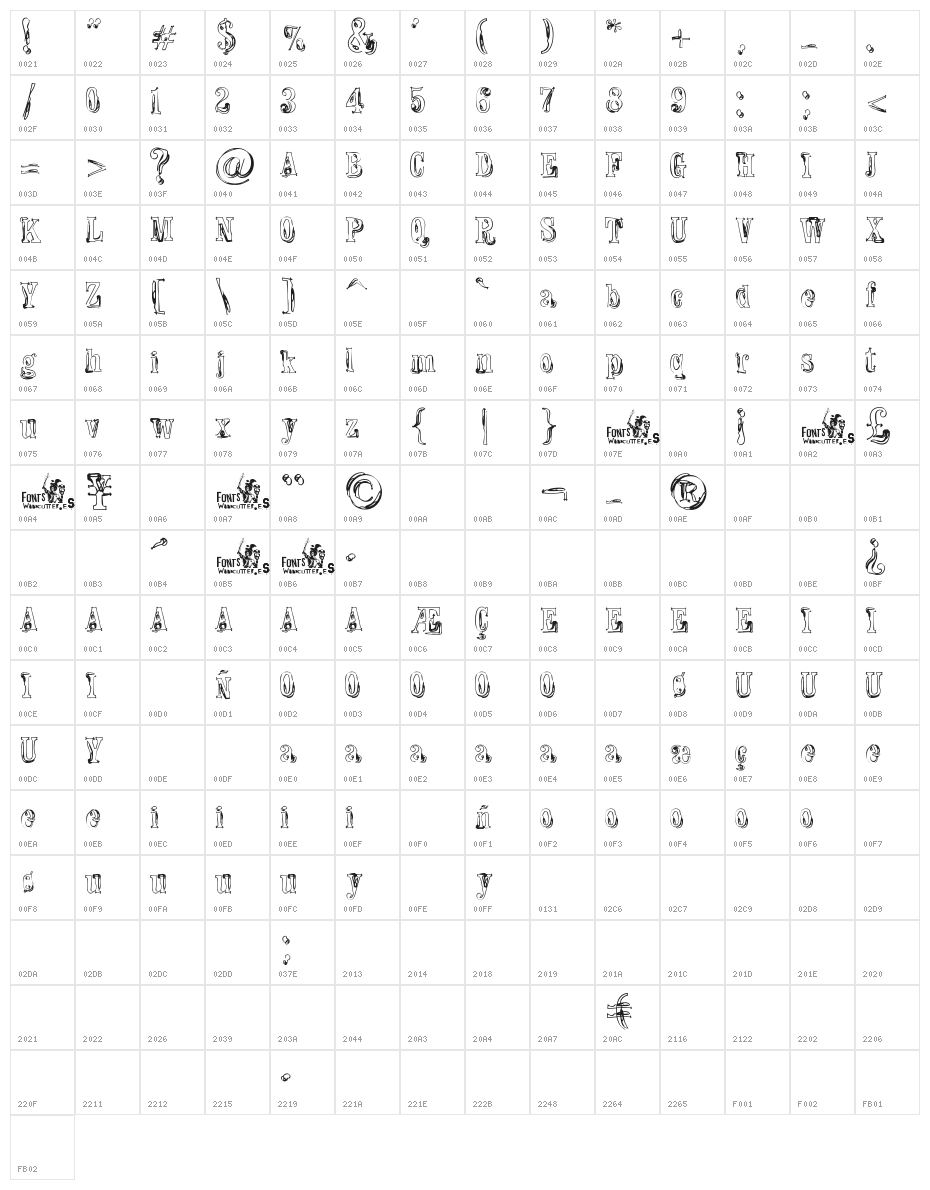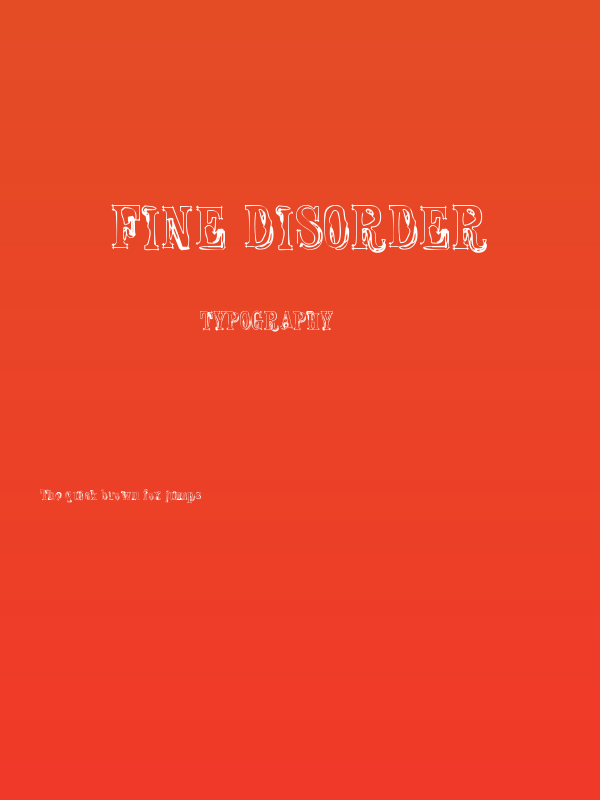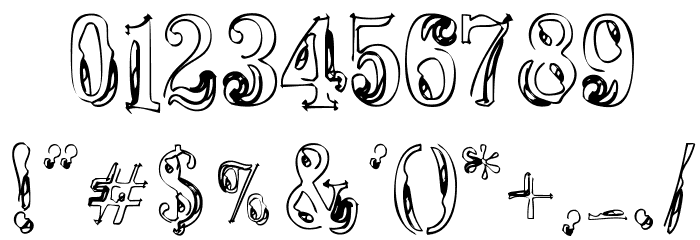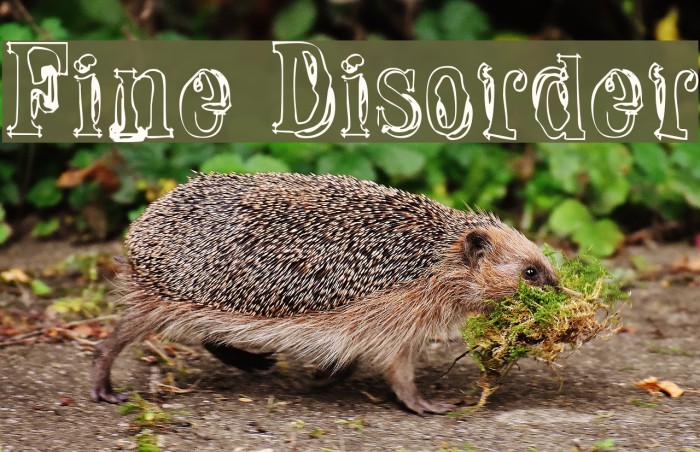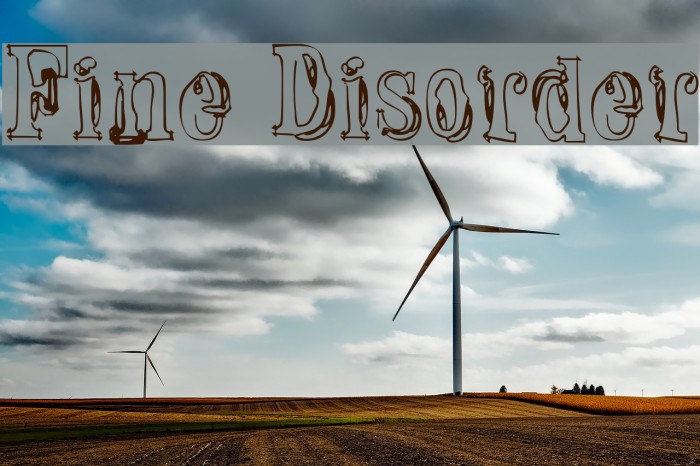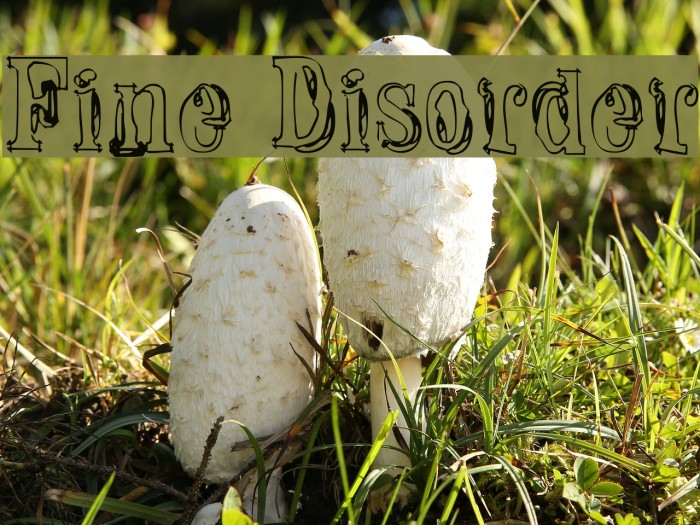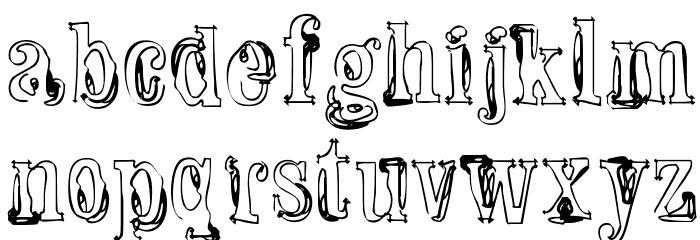
Fine Disorder Font
Fine Disorder Description
This font features a unique and artistic design with a chaotic, hand-drawn appearance. Each character is infused with a sense of movement and energy, characterized by irregular lines and varying stroke weights. The letters have a whimsical, almost playful quality, with some strokes appearing to drip or splatter, adding to its disorderly charm. The uppercase and lowercase letters maintain this style, creating a cohesive yet unpredictable look. Numbers and special characters follow the same design principles, ensuring consistency across all elements. This font is ideal for projects that require a bold, artistic statement.
FINE-DISORDER UPPERCASE
FINE-DISORDER LOWERCASE
FINE-DISORDER OTHER CHARS